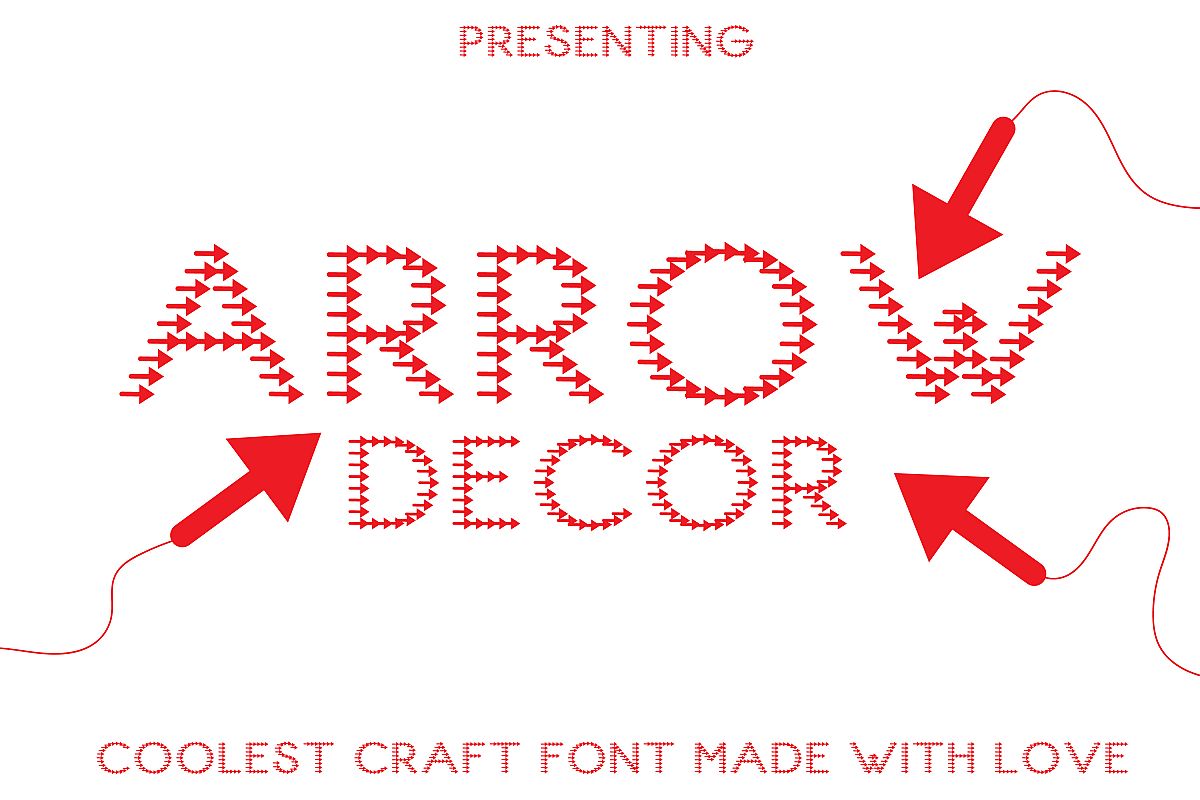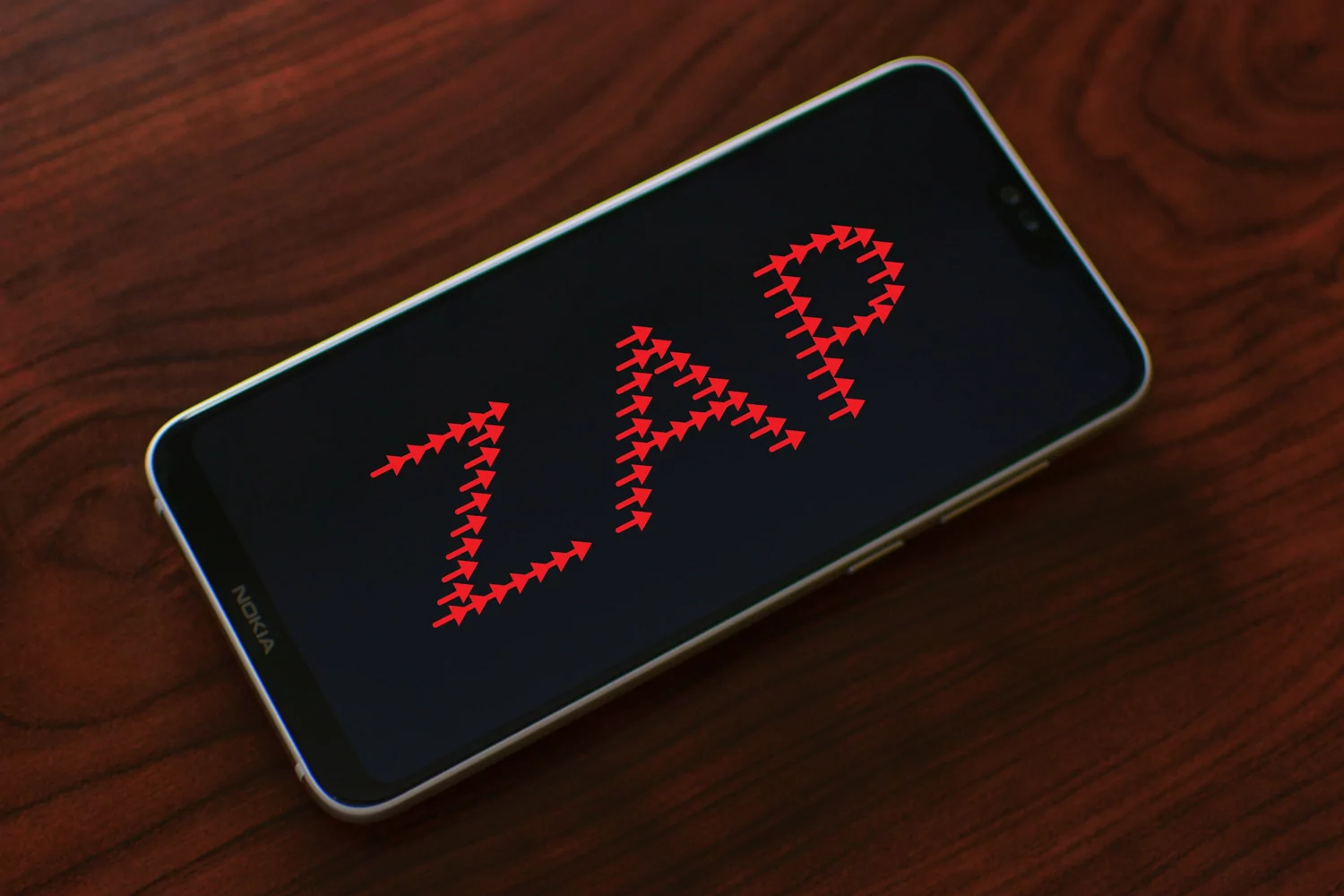
Presenting Cute font for you. This Special Paper Cut Arrows Decor can be used in tons of projects specially in child and new born projects. You can use it for craft purpose and this will looks great on shirts, printing material and other stuff.
3- Super Cute and Creative, Papercut Style